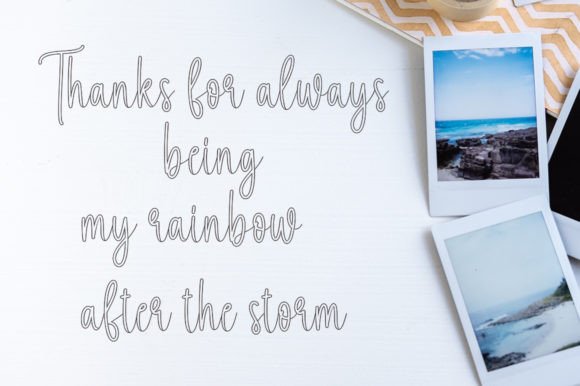
Handwriting Font
Handwriting Outline simplifies elegance into one truly outstanding handwritten font. It maintains its classy calligraphic influences while feeling contemporary and fresh. This versatility will appeal to a wide range of crafty ideas, from letterheads and titles to stationery.